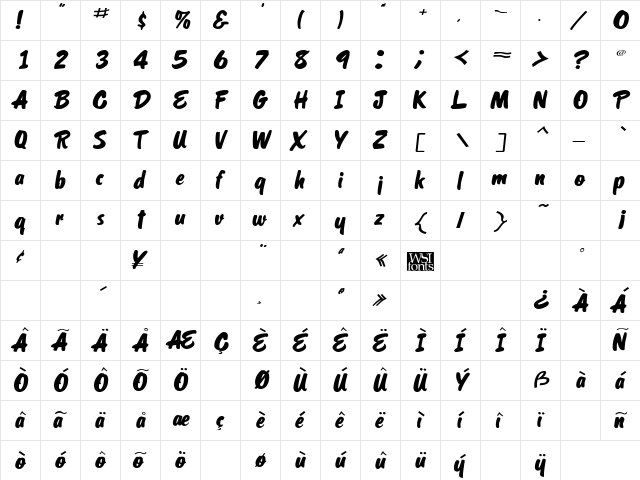
PritchettScript Italic Font Preview
PritchettScript Italic
PritchettScript Italic Font Details
Design Context for PritchettScript Typeface
PritchettScript flows with the natural rhythm of handwritten lettering, making it ideal for designs that call for warmth and personal expression.